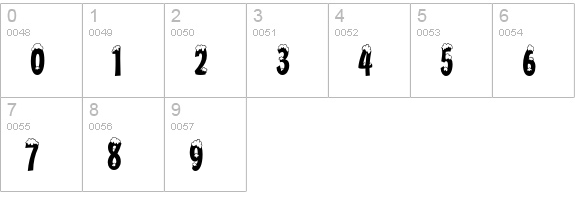
SnowCap Font Details
Introducing SnowCap, a breathtakingly elegant font that captures the essence of winter's delicate beauty. With its graceful curves and frosty edges, SnowCap transports you to a magical wonderland, where each letter is like a delicate snowflake falling from the sky. This font's versatility knows no bounds, making it perfect for a wide range of creative projects. Whether you're designing a winter-themed wedding invitation, crafting a stunning logo for a cosmetics brand, or adding a touch of sophistication to a holiday greeting card, SnowCap effortlessly elevates your designs to new heights. But here's the best part - SnowCap is completely free! That's right, this enchanting font is freely available to download at FontsMarket.com, where you can access a treasure trove of high-quality fonts for all your design needs. So why wait? Embrace the enchantment of SnowCap and let your creativity soar. Download this stunning font today and watch as your designs come to life with a touch of winter magic.